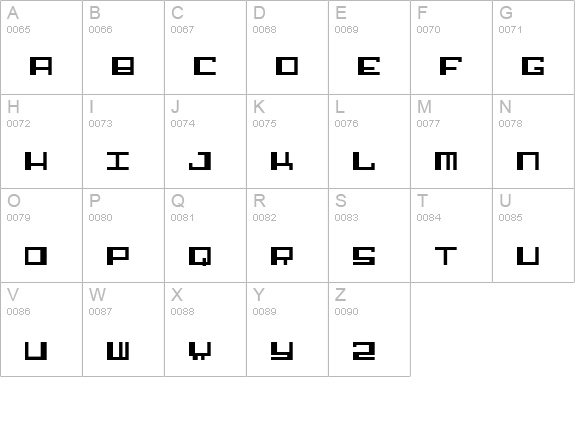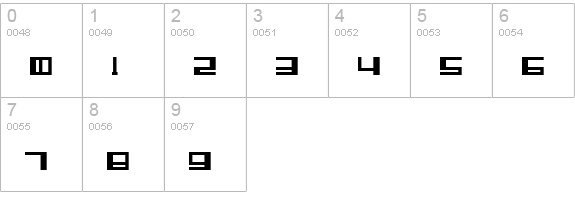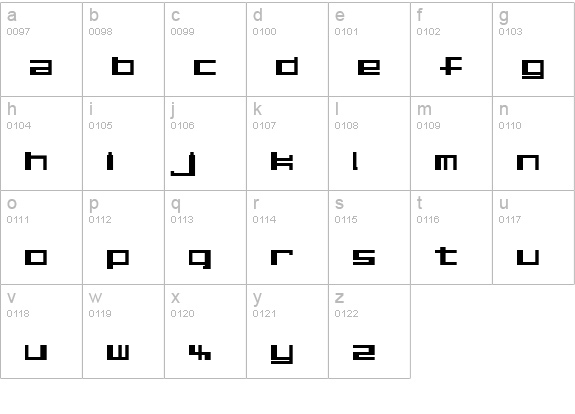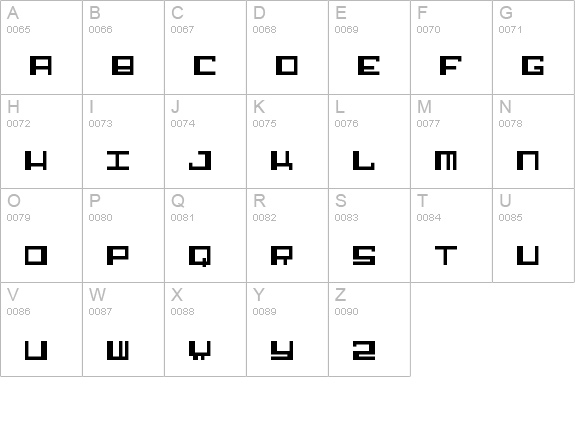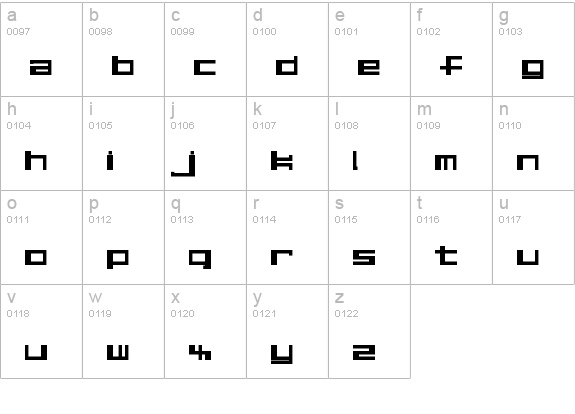
Alphastep Font Details
Alphastep font is a modern and stylish typeface that exudes elegance and sophistication. With its sleek lines and clean design, Alphastep is perfect for a wide range of projects, from branding to web design. This versatile font is sure to make your text stand out and leave a lasting impression on your audience. The best part about Alphastep font is that it is completely free to download. You can easily access this beautiful typeface at FontsMarket.com and start using it in your projects right away. Don't miss out on the opportunity to enhance your designs with the timeless beauty of Alphastep font. Download it today and elevate your typography game to the next level.